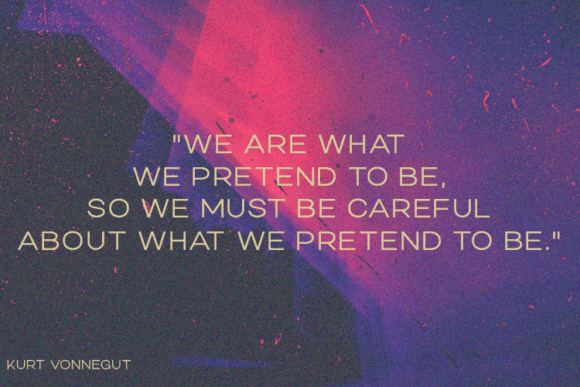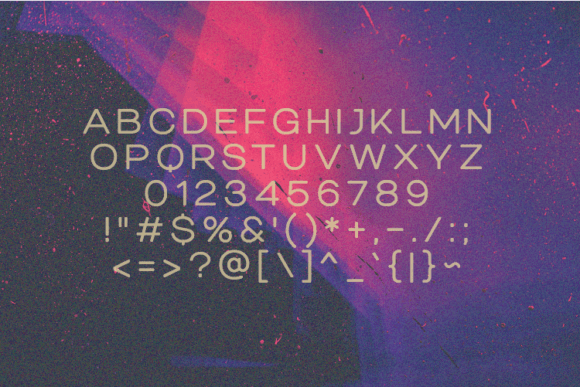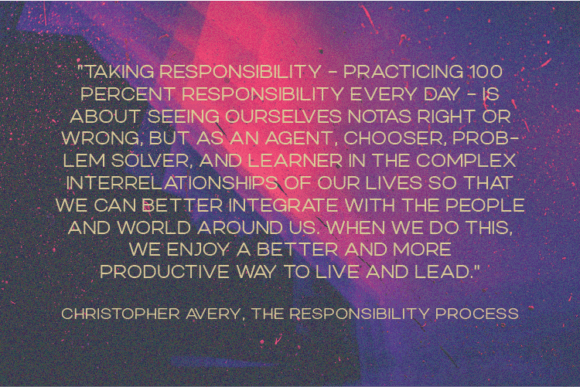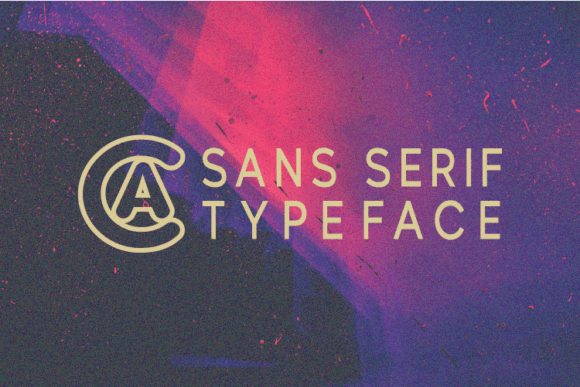
Grounded Font: Elevate Your Designs with a Modern, Classy Sans Serif Typeface
In the world of typography, a font can make or break a design. A well-crafted typeface can elevate your project from ordinary to extraordinary. If you’re a designer or crafter looking for a versatile and modern sans serif font, look no further than Grounded Font. This sleek and sophisticated typeface is perfect for a wide range of applications, from logos and weddings to invitations, quotes, advertisements, print, magazines, and more!
The Characteristics of Grounded Font
Grounded Font is a modern, classy sans serif typeface that exudes elegance and sophistication. Its clean lines, simple shapes, and balanced proportions make it a versatile font that can be used in a variety of contexts. The font features a crisp and clear appearance, making it perfect for both digital and print applications.
What Makes Grounded Font So Versatile?
Grounded Font’s versatility is one of its standout features. This typeface can be used for a wide range of projects, including:
- Logos: Create a professional and modern logo for your business or brand with Grounded Font.
- Weddings and Invitations: Add a touch of elegance to your wedding invitations, save-the-dates, and other stationery with this beautiful font.
- Quotes and Typography: Use Grounded Font to create stunning typography quotes, posters, and prints.
- Advertisements: Make your ads stand out with a modern and classy font that grabs attention.
- Print and Magazines: Use Grounded Font for your print projects, such as brochures, flyers, and magazine layouts.
Why Choose Grounded Font?
So, why choose Grounded Font over other typefaces? Here are just a few reasons:
- Modern and Fresh: Grounded Font has a modern and fresh feel that will give your designs a contemporary edge.
- Elegant and Sophisticated: This typeface exudes elegance and sophistication, making it perfect for high-end designs.
- Easy to Read: Grounded Font is clear and easy to read, making it perfect for body text and captions.
- Highly Versatile: This font can be used for a wide range of projects, from logos to print materials.
Tips for Using Grounded Font
Here are a few tips for getting the most out of Grounded Font:
- Experiment with Font Sizes: Grounded Font looks great in a variety of font sizes, from large headings to small body text.
- Play with Line Spacing: Adjust the line spacing to create a sense of flow and rhythm in your text.
- Combine with Other Fonts: Pair Grounded Font with other fonts to create a unique and interesting typography combination.
In conclusion, Grounded Font is a modern, classy sans serif typeface that is perfect for designers and crafters looking for a versatile and elegant font. With its clean lines, simple shapes, and balanced proportions, this typeface is perfect for a wide range of projects, from logos and weddings to invitations, quotes, advertisements, print, magazines, and more! Whether you’re a seasoned designer or just starting out, Grounded Font is a great addition to your font library.